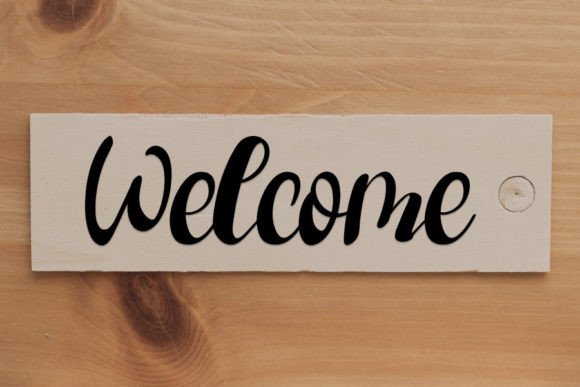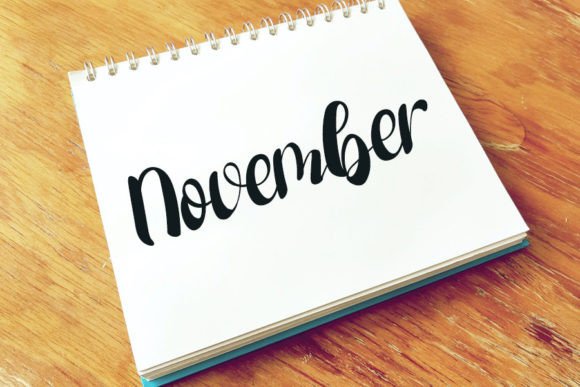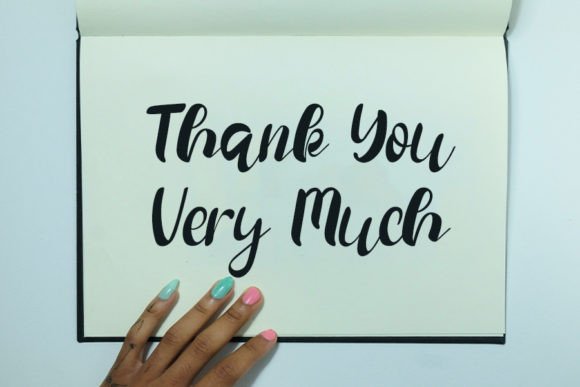
Introduction to Library Font
Have you ever found yourself in a creative rut, staring at a blank page, searching for that perfect design element to bring your project to life? As a designer, you know the struggle is real. But what if I told you there’s a font that can transport you to a world of elegance and sophistication, making your high-quality designs shine like never before?
Enter the enchanting Library Font, a beautiful handwritten font that exudes an air of refinement and poise. Its distinct style and timeless charm make it the perfect design resource for any creative project. Whether you’re working on a free download or a commercial design, this font is sure to impress. And the best part? It’s available for free, allowing you to experiment with its versatility on a transparent background and see what wonders you can create.
Key Features of Library Font
- High-quality design: Library Font is a carefully crafted font suitable for various creative projects, including book covers, posters, and more.
- Transparent background: Library Font comes with a transparent background, allowing for easy integration with various design elements and backgrounds.
- High-resolution design: With a resolution of up to 300 DPI, Library Font is suitable for large-scale printing and commercial use.
- Unique characteristics: The font’s unique design elements, including intricate details and ornate flourishes, make it stand out from other fonts.
- Size: The font family includes a range of weights, from Light to Heavy, allowing for flexibility in design projects.
Honest Review: Library Font
As a designer, I’m always on the lookout for high-quality design resources that can elevate my creative projects. The Library Font is one such find that has impressed me with its sleek and sophisticated aesthetic.
Here are some aspects where the Library Font truly shines:
- ✨ High-quality design that’s perfect for a range of creative projects
- ✨ Transparent background makes it easy to work with, allowing for seamless integration into any design
- ⚠️ Limited font styles, which might not be suitable for projects that require a wide range of typography options
- ⚠️ Not all characters may be available in certain font sizes, which could cause issues in certain design scenarios
Overall, I’m impressed with the Library Font’s clean and modern design. While it may have some limitations, it’s a valuable resource for designers looking to add a touch of sophistication to their creative projects. With a bit of creative problem-solving, the Library Font can be a great addition to your design toolkit.
How to Use Library Font
The Library Font is a high-quality, free download that can be used in a variety of creative projects. It’s a versatile design resource that offers a transparent background, making it easy to customize and integrate into your work.
Tips for Getting the Most Out of Library Font
For optimal results, use Library Font in conjunction with other high-quality design resources. Experiment with different font sizes and styles to create a visually appealing design.
Library Font is commonly used in a variety of creative projects, including infographics, posters, and presentations. Its transparent background makes it easy to use in a variety of design applications.